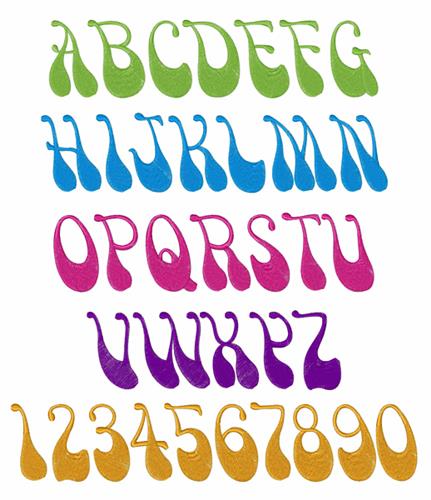
Embroidery Patterns is happy to present Bell Bottoms machine embroidery font which has Playful decorative machine embroidery font with rounded, droplet-like forms in vibrant green, blue, and pink hues. Ideal for adding a fun touch to fabrics like t-shirts or bags. Available in PES, DST & 11 other formats. included. If you would like to view more embroidery fonts and alphabets please search our embroidery fonts page.